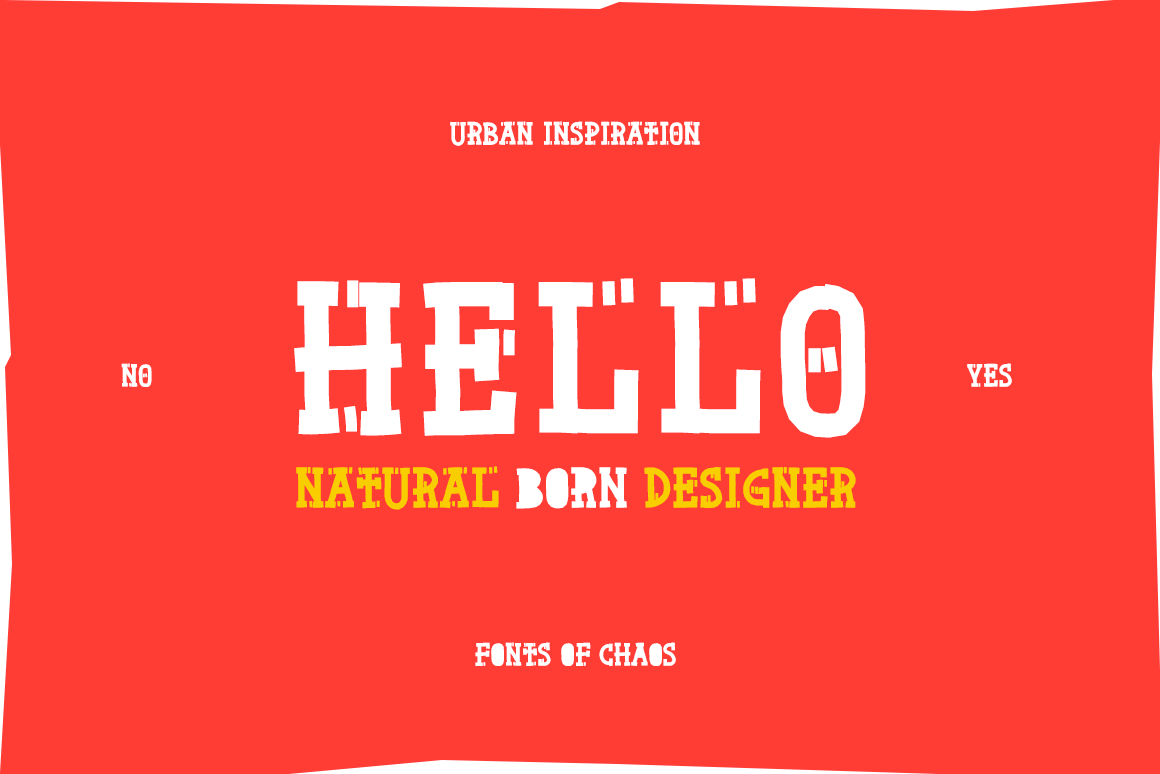
Natural Born Designer - font
True bold font, only available in uppercase but with different styles. This font is really easy to use in your design. This font takes his inspiration from the old school post graffiti. The name comes from the movie "Natural Born Killers" by Oliver Stone.